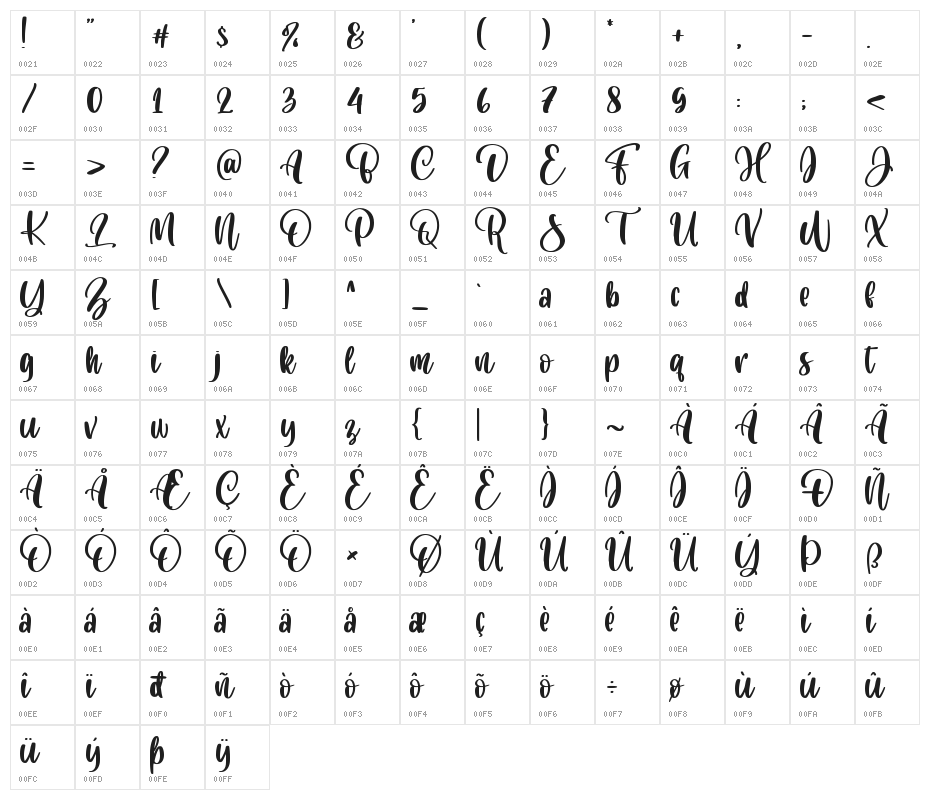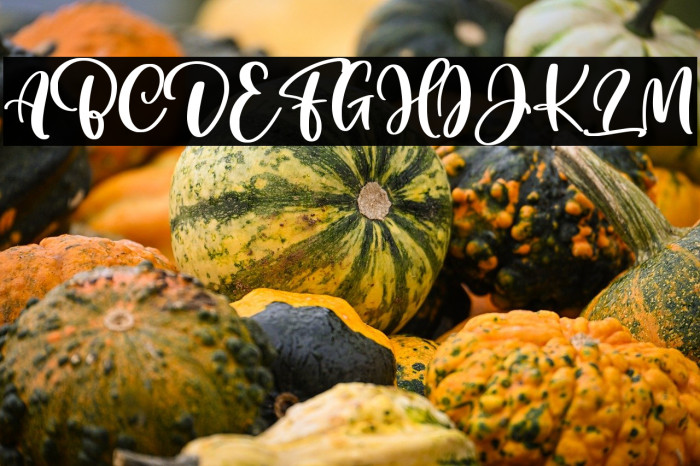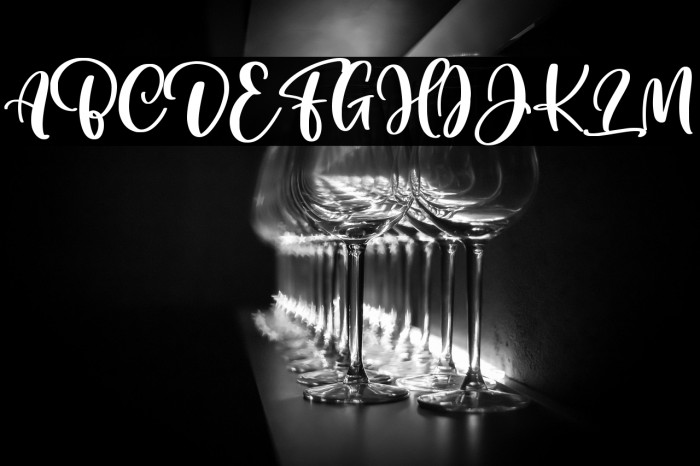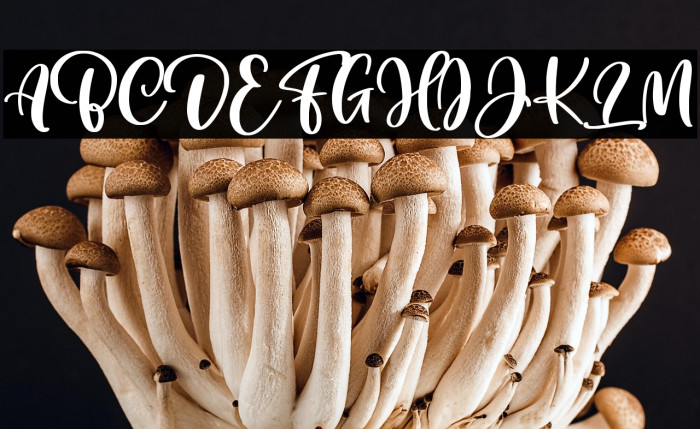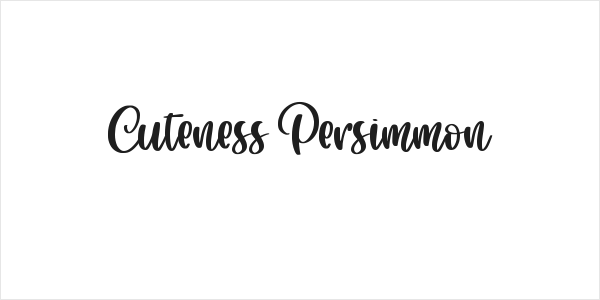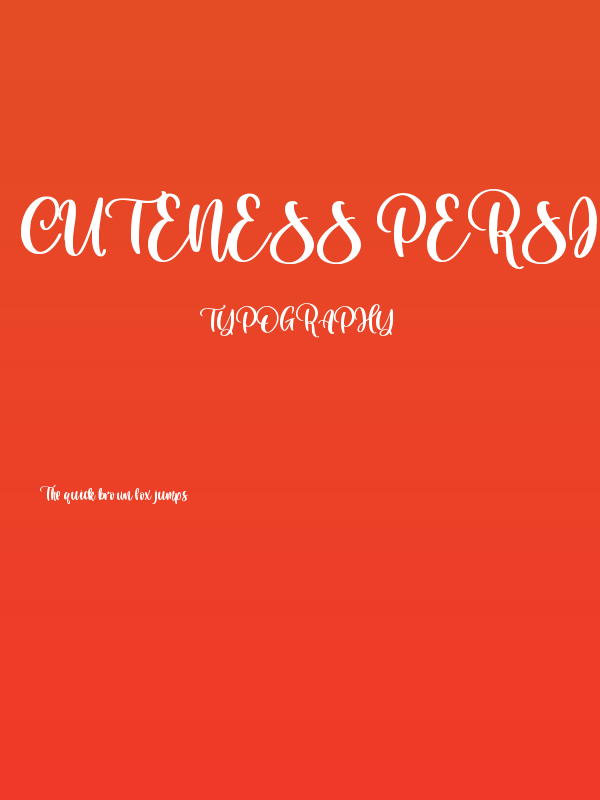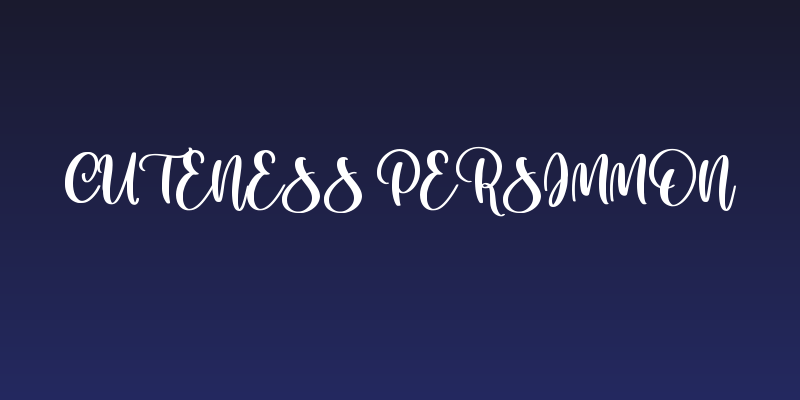
Cuteness Persimmon Font
Cuteness Persimmon Description
This font features a playful and whimsical script style, characterized by its flowing, cursive letterforms. The uppercase letters are elegantly looped and connected, while the lowercase letters maintain a consistent, rounded appearance. The numbers and special characters complement the overall style with similar curves and flourishes. The font's bold strokes and smooth transitions between thick and thin lines give it a lively and dynamic feel. Its design is both modern and approachable, making it suitable for a variety of creative applications.
| Overall Style | Playful, Modern |
| Proposed Projects | Ideal for greeting cards, invitations, branding projects, and playful social media graphics. |